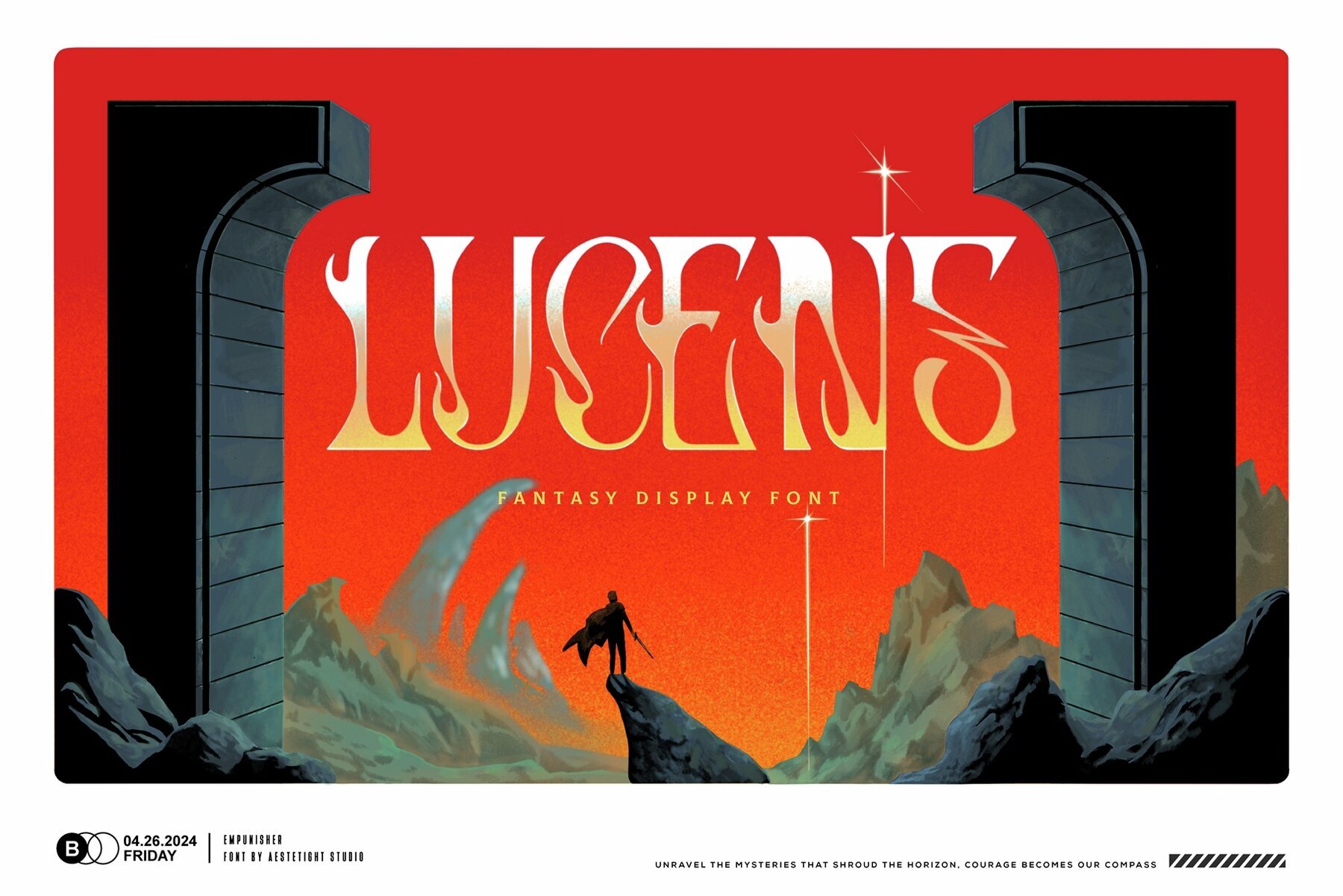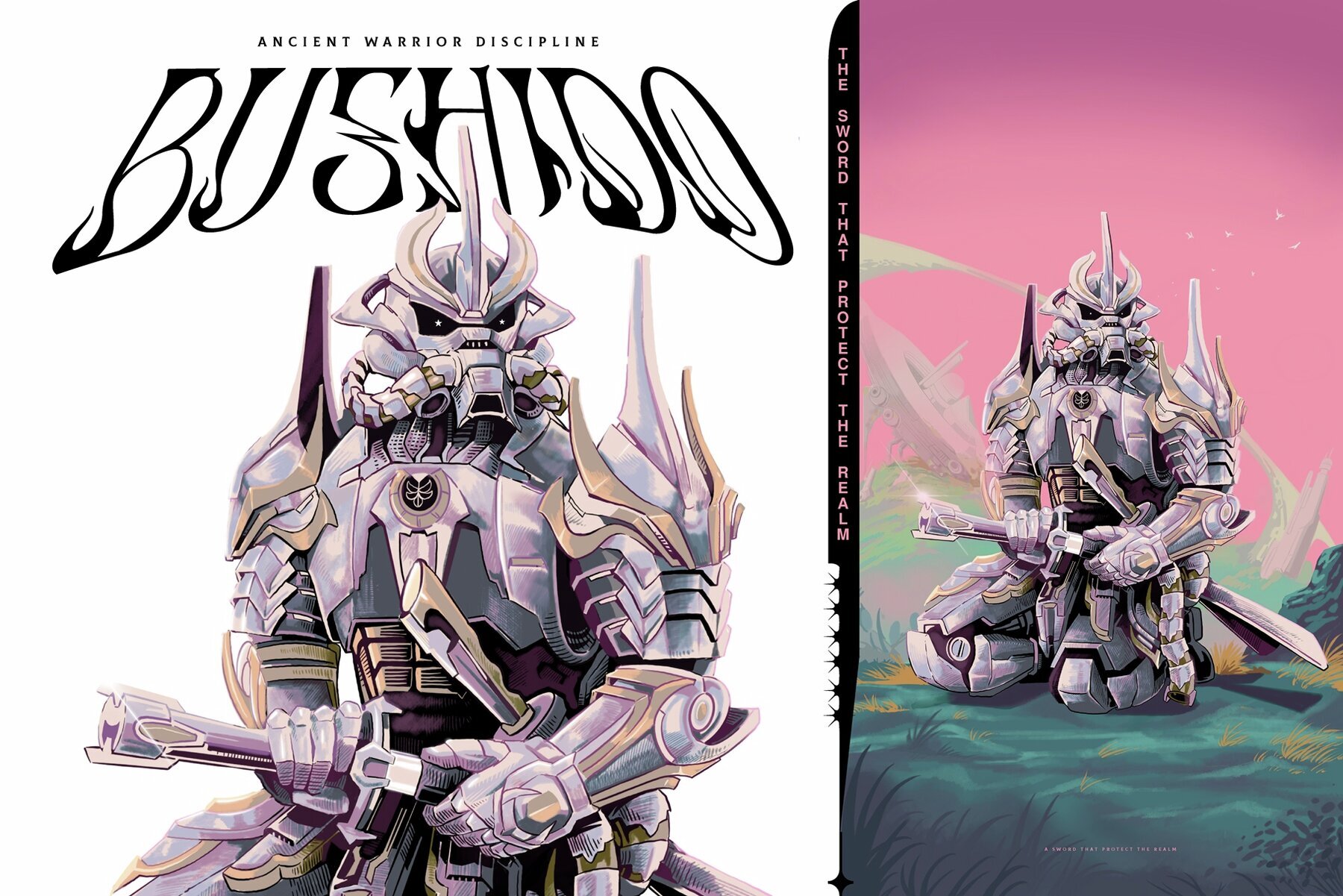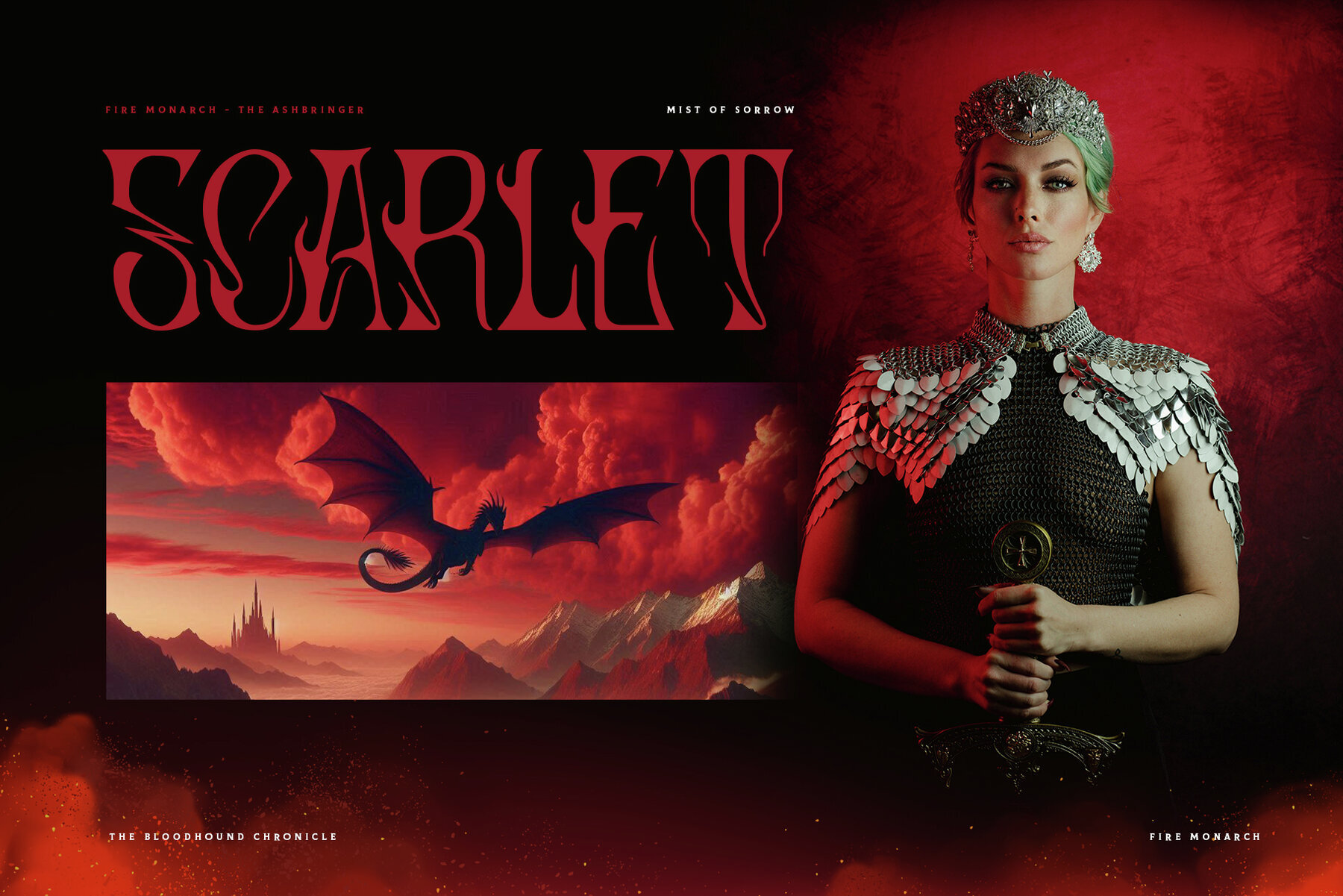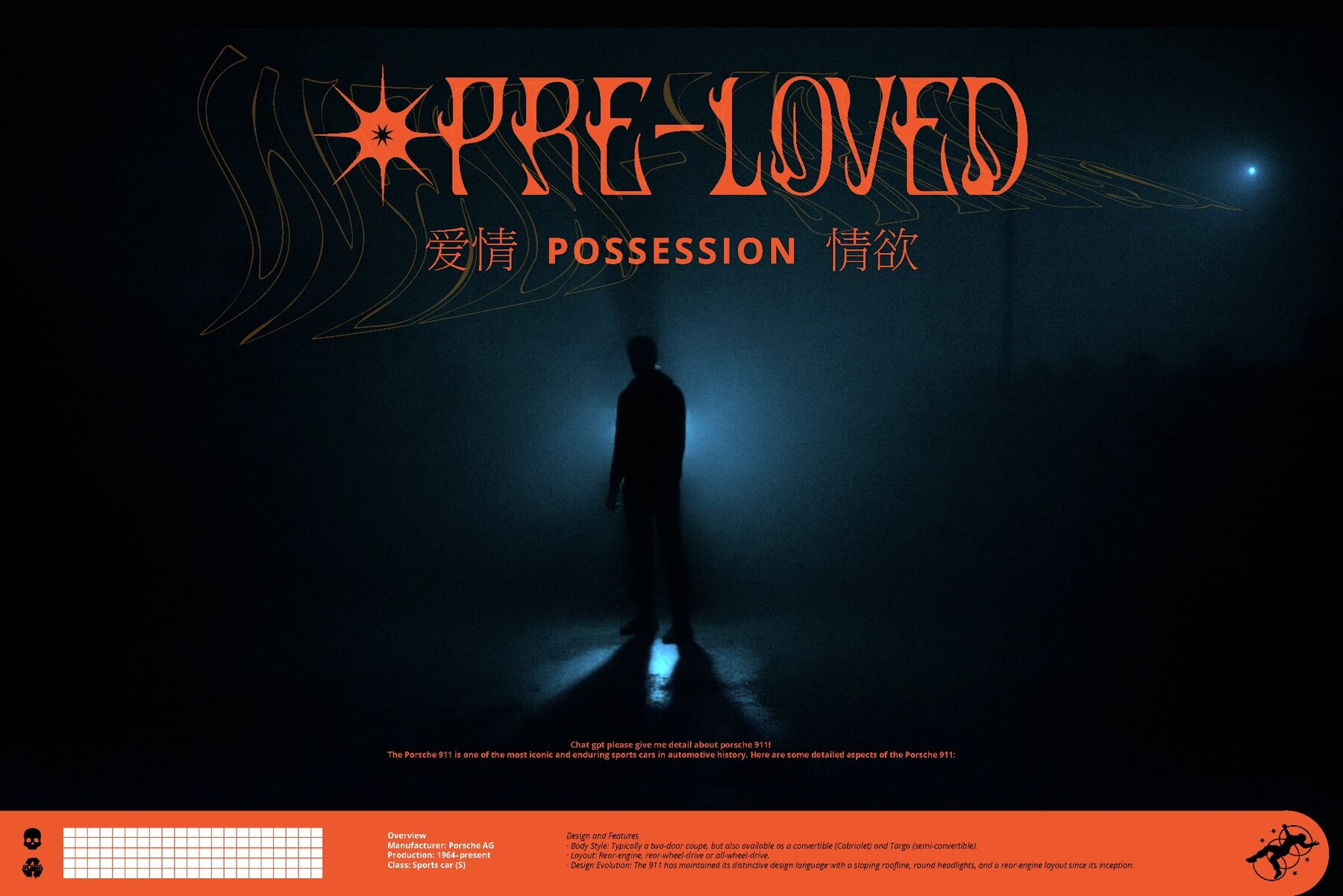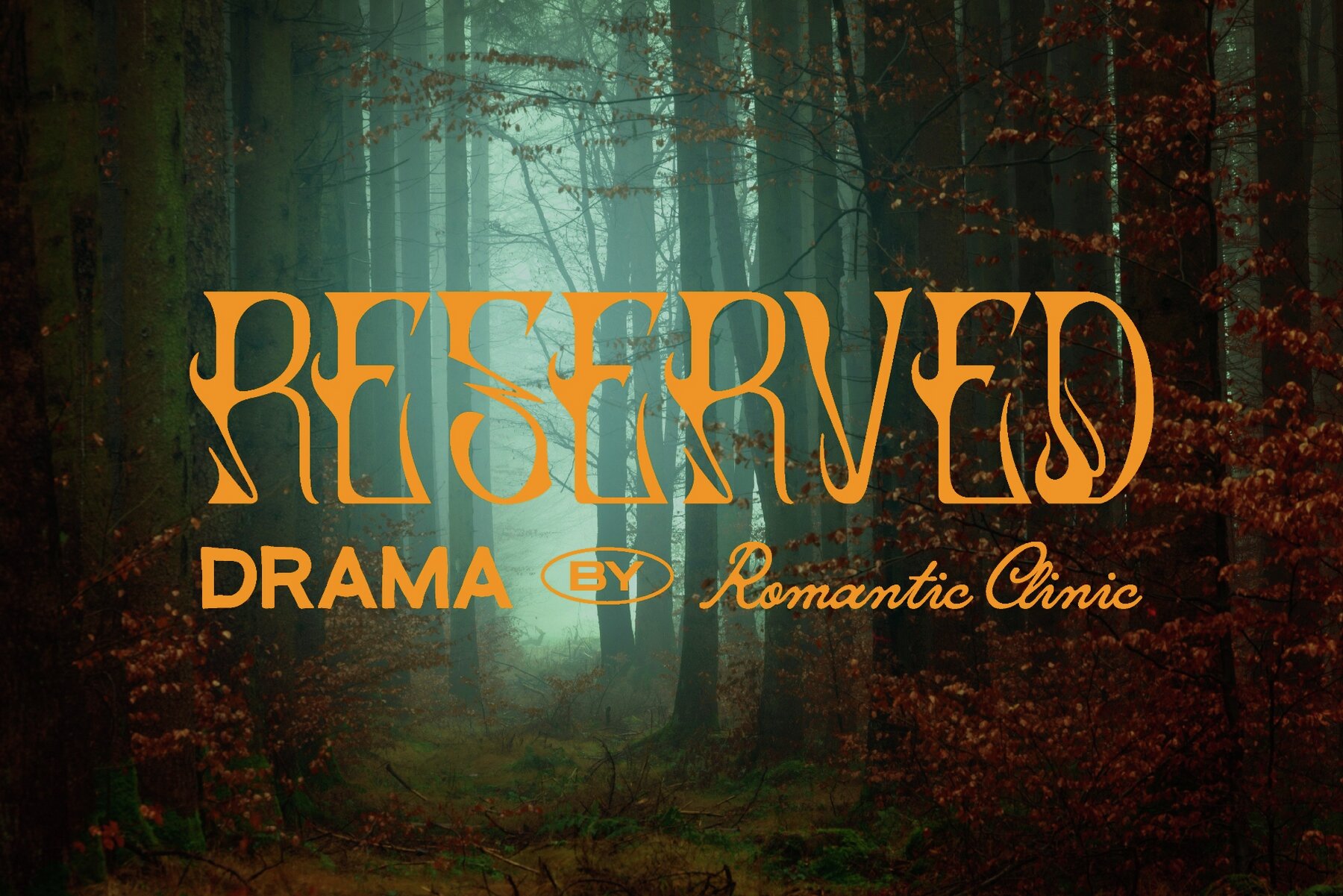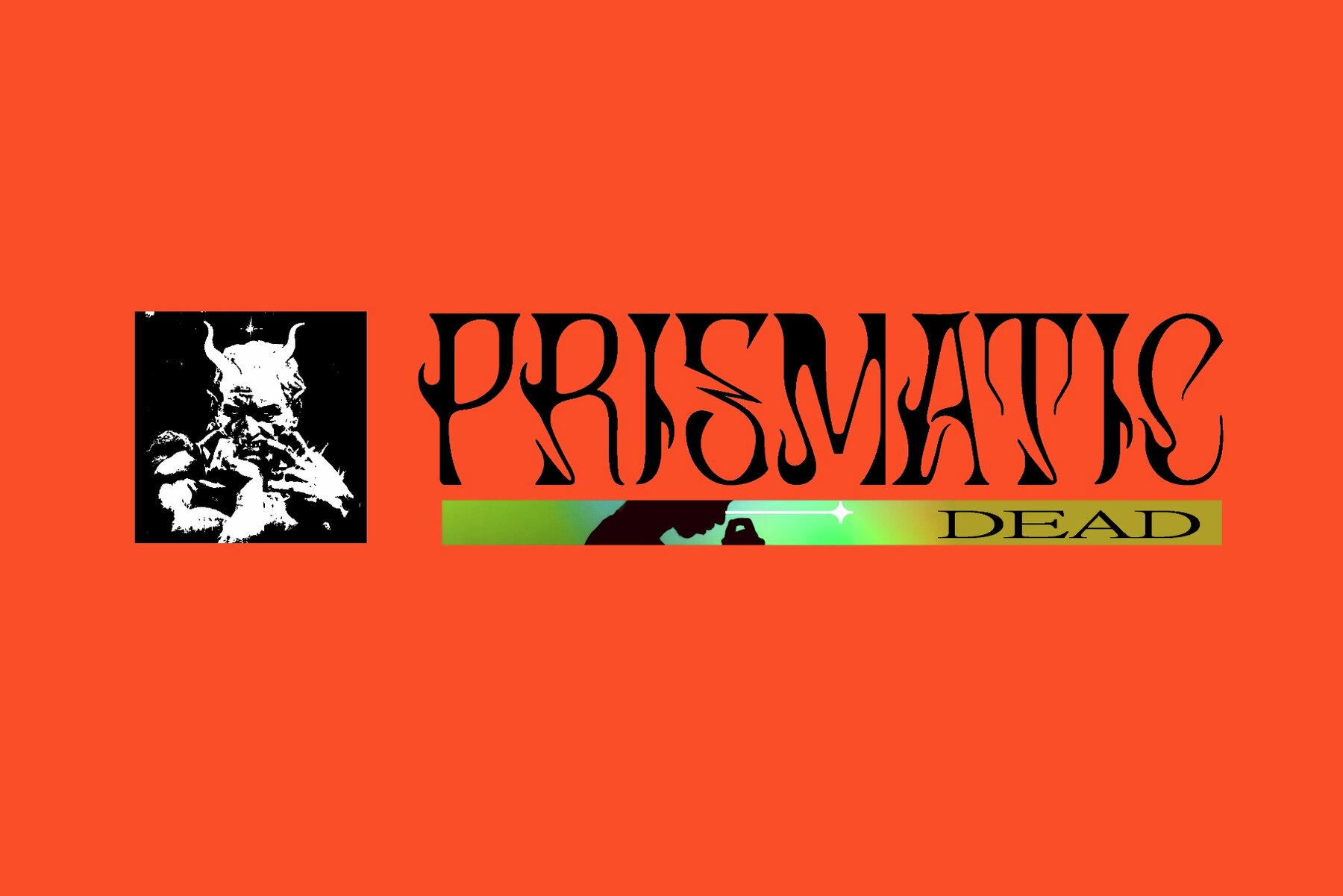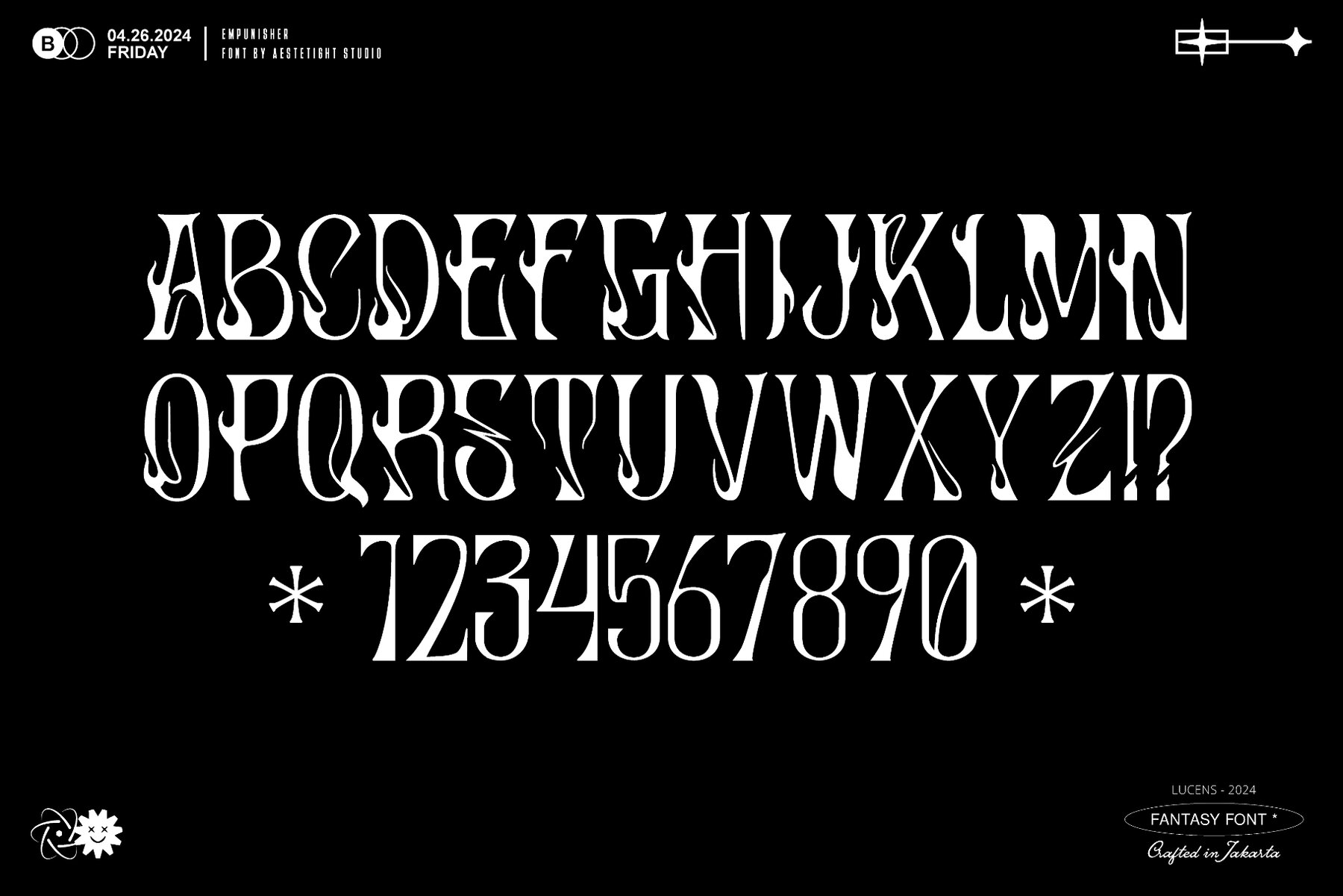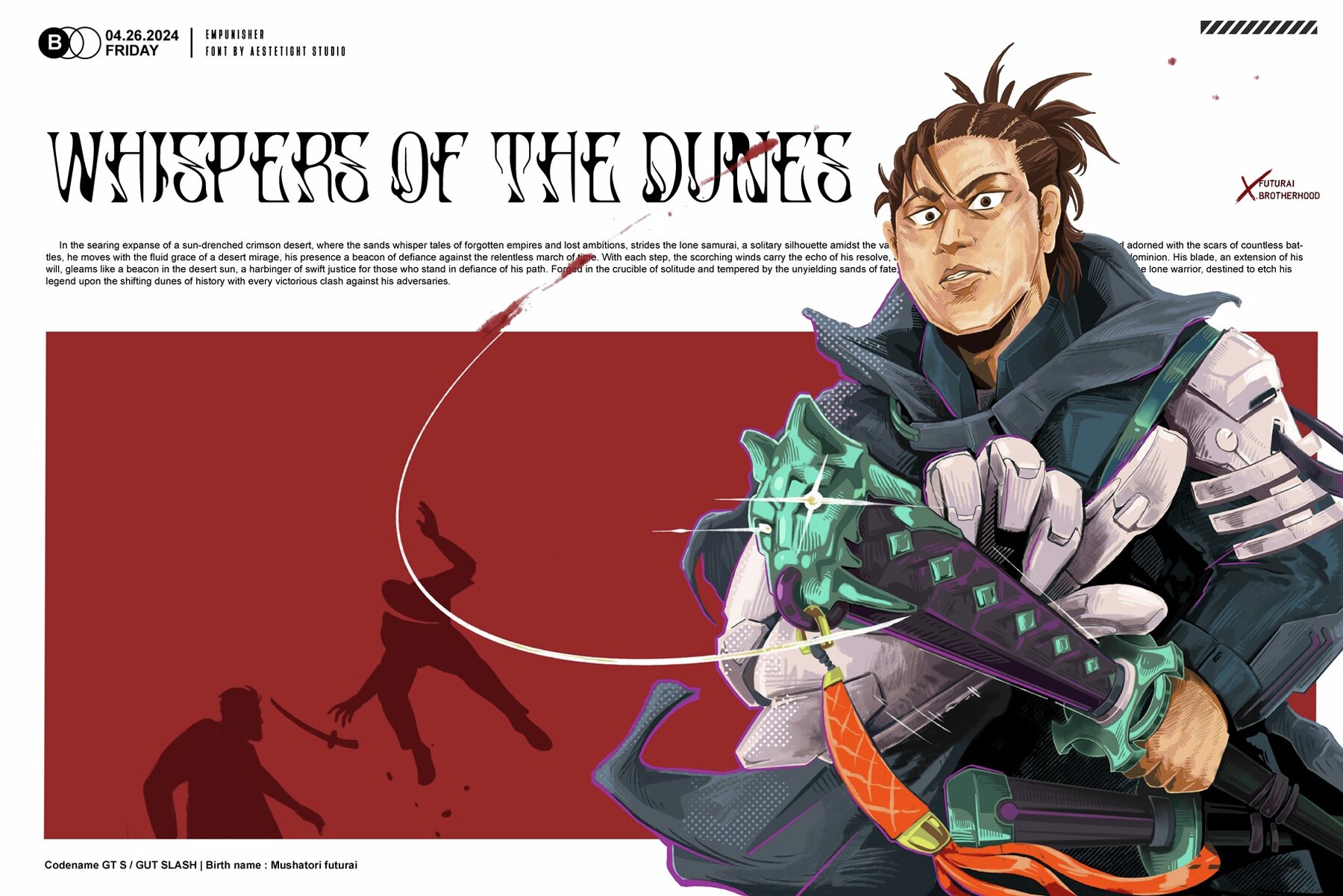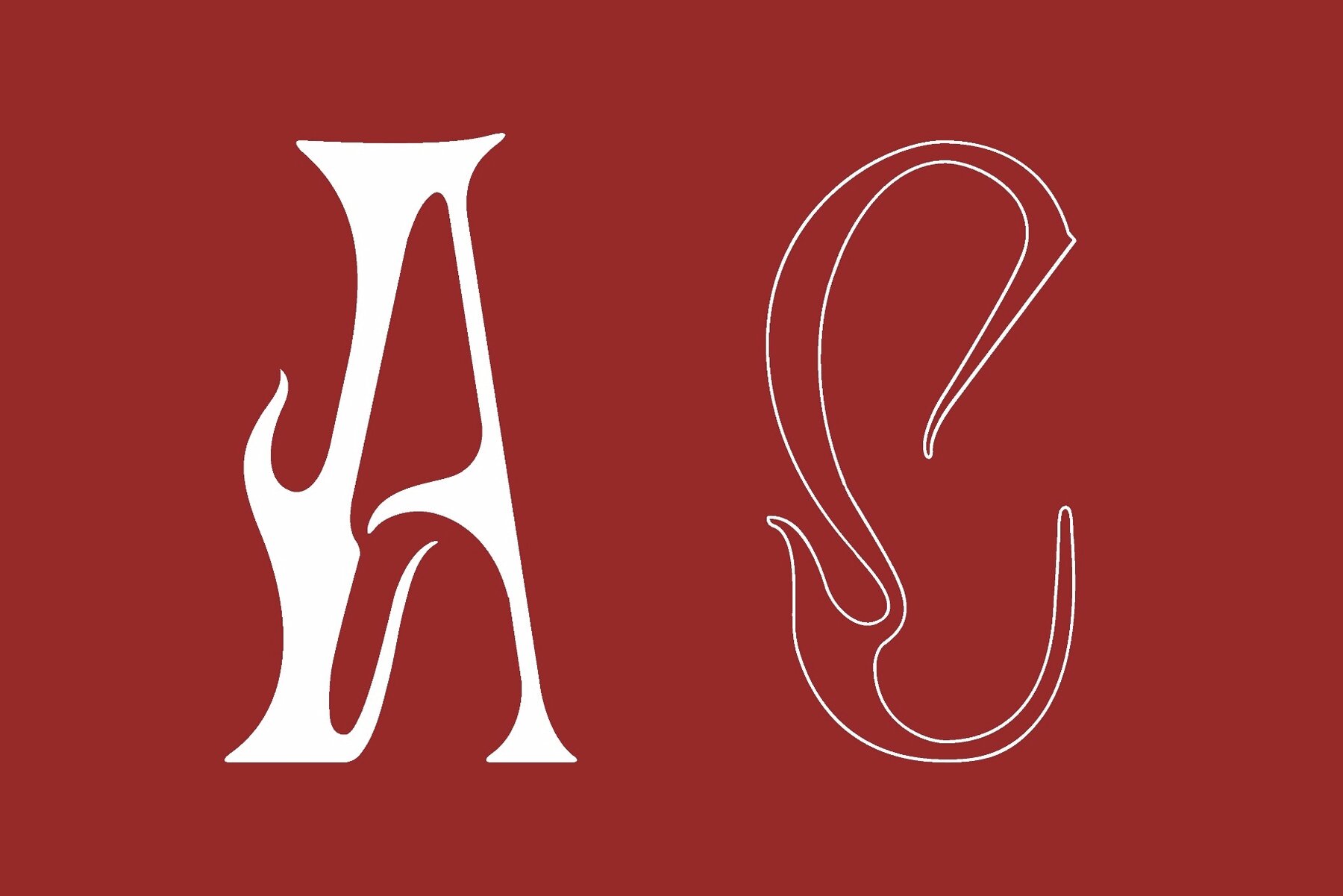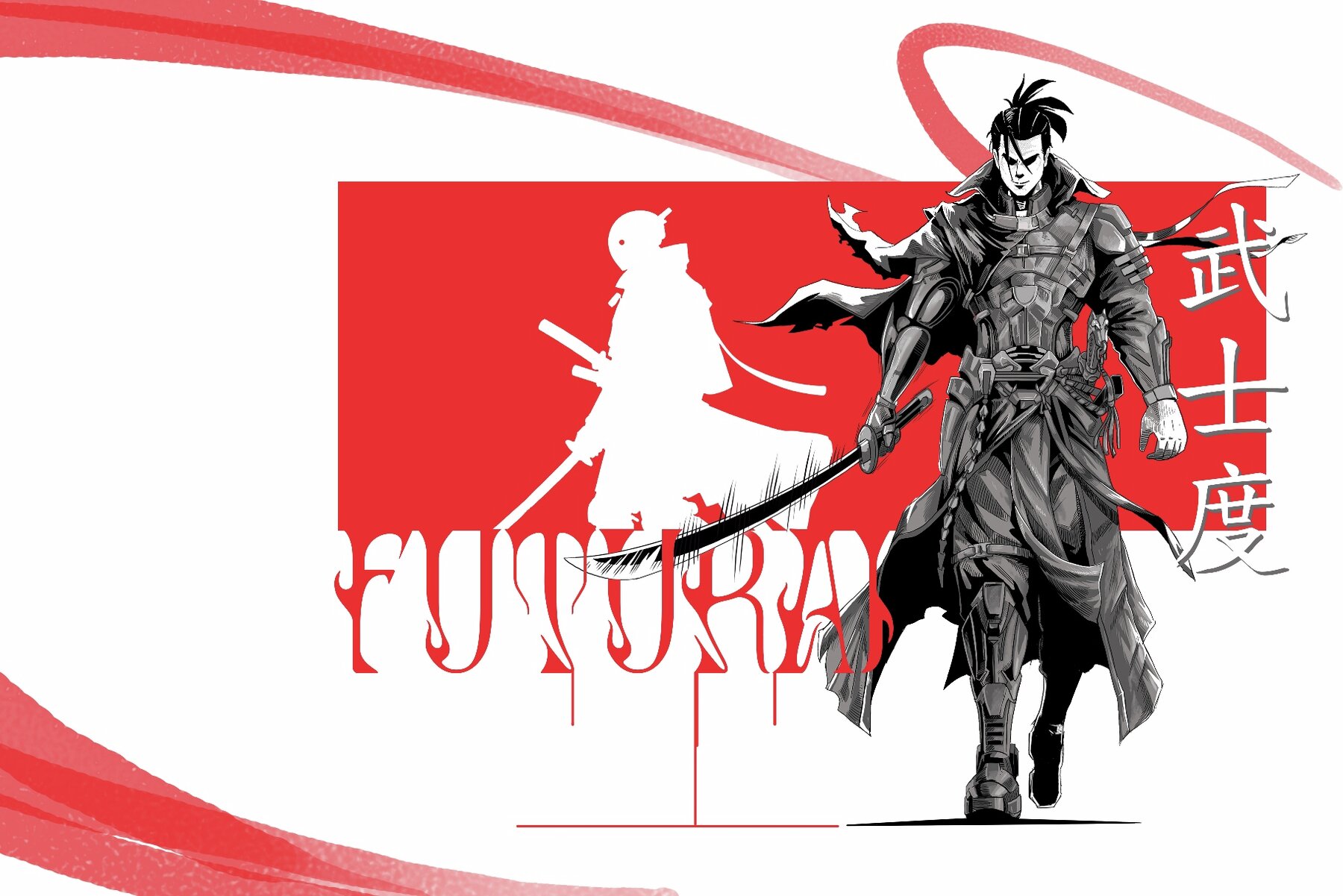
Lucens: A Fantasy Display Font with a Y2K Aesthetic
Designed by Empunisher Studio, Lucens is a distinctive display font that captures the essence of fantasy with elements of flame and a chrome Y2K aesthetic. This font is ideally suited for a variety of applications including apparel, cover designs, video games, and other projects that resonate with its unique style.
• Fantasy Flame Design – Incorporates stylistic flame touches that evoke a sense of adventure and mystique.
• Chrome Y2K Finish – Features a reflective chrome finish that harks back to the futuristic designs of the late 1990s and early 2000s.